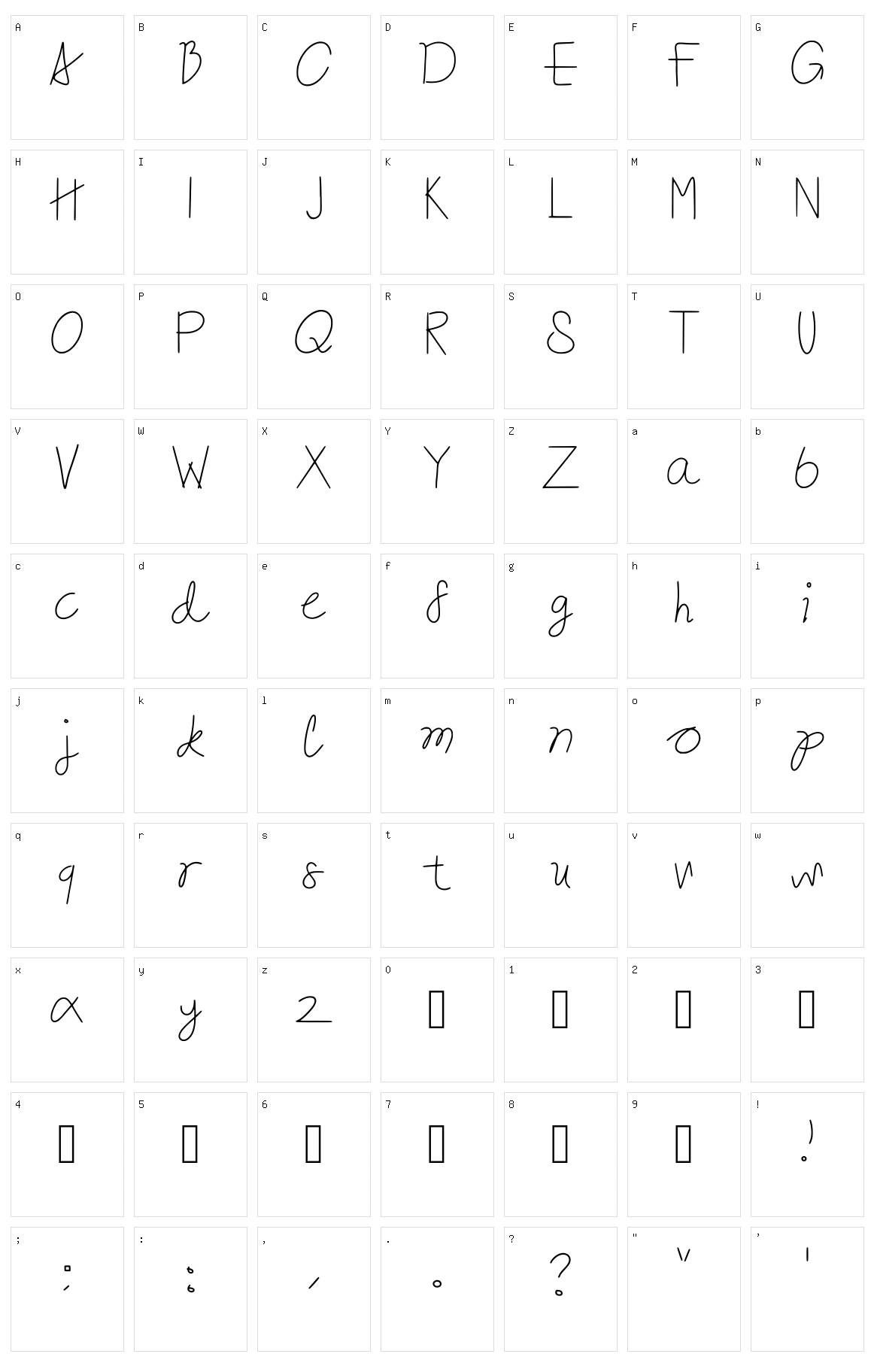
The free font Bead is carefully designed by GORES Communitype Studio, showcasing a thoughtful balance of creativity and usability and falls under the Script font style. When you download the ZIP file, it contains only 10 KB of font files, making it lightweight and quick to download. Please review the license details below to understand permitted usage and distribution rights. If license information is not available, we recommend using this font for personal projects only or contacting the author directly for commercial usage permissions.
Bead Handwriting Mono Line Font